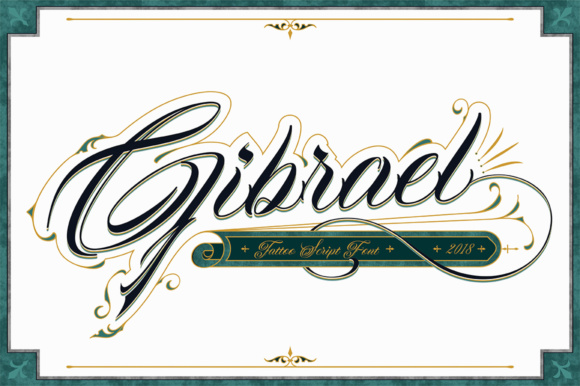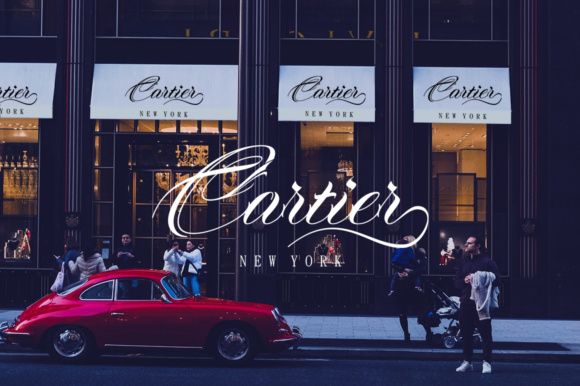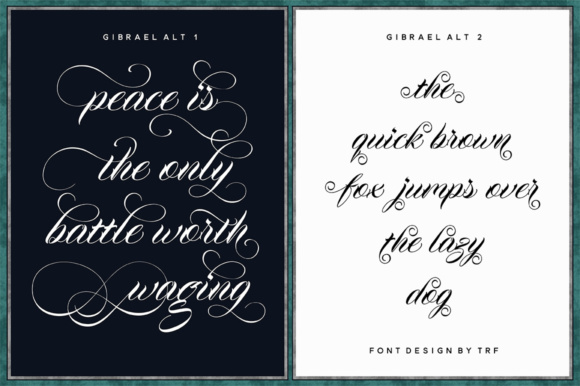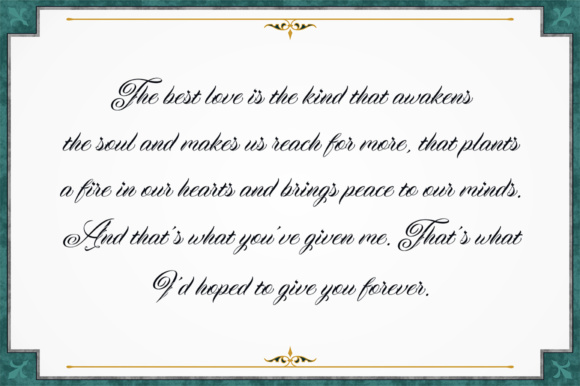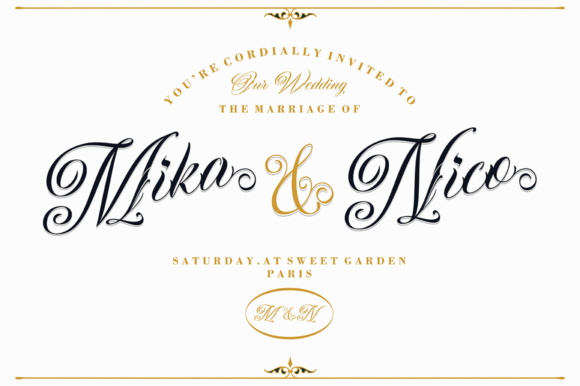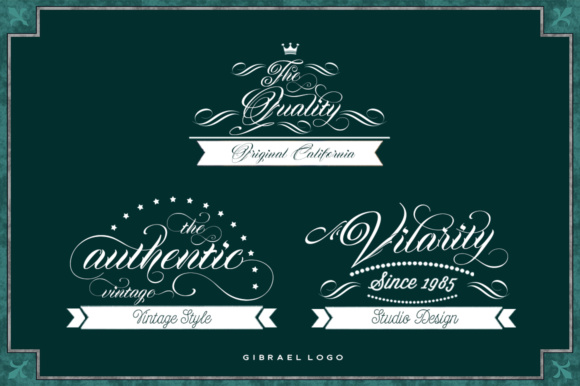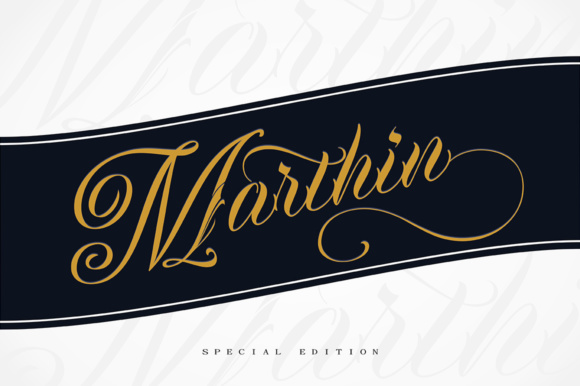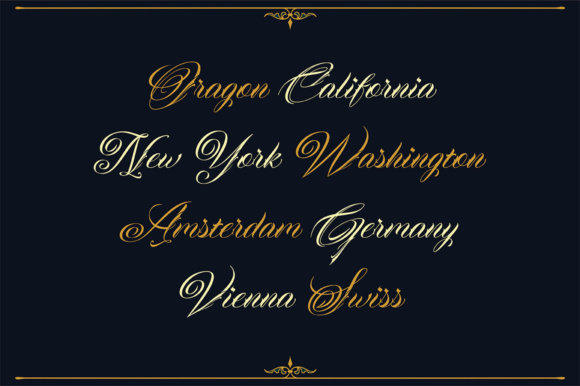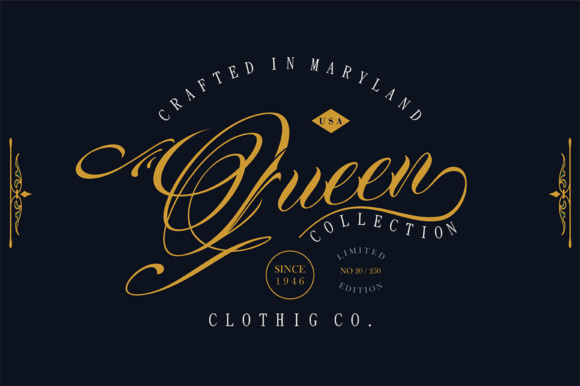
Gibrael Font
About Gibrael Font
Gibrael is a stunning and super refined calligraphy font, perfect for a wide range of projects that need delicate typeface. This font comes with tons of glyphs and alternate characters so you can make decorative type easily.